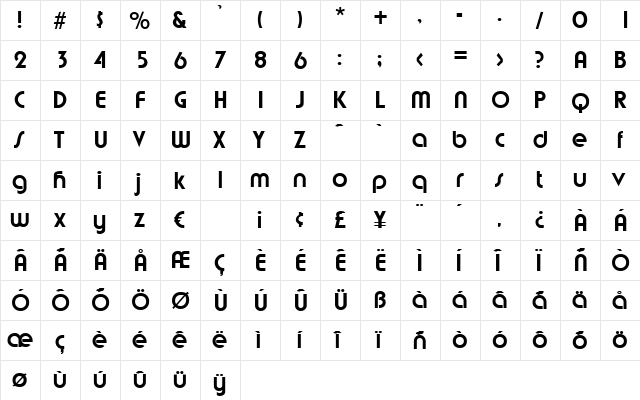
Graphics Regular
Design Context for Graphics Typeface
Graphics offers clean, dependable letterforms without strong stylistic allegiance, making it a practical choice for designers who need flexibility.